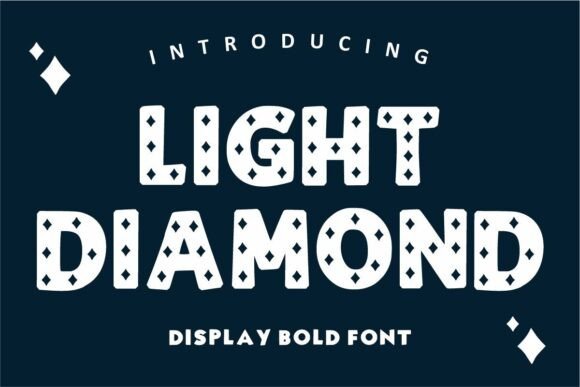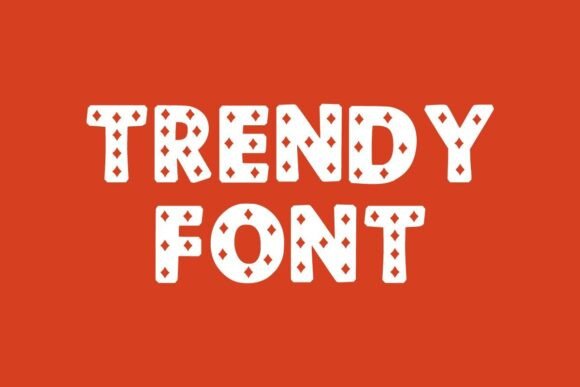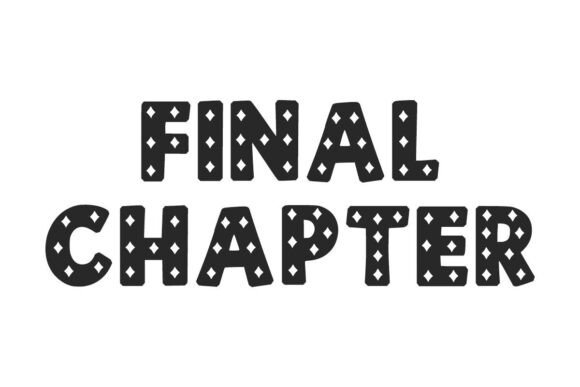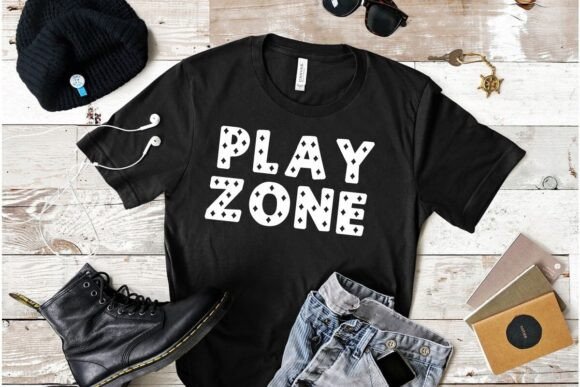
Light Diamond Font
About the Light Diamond Font
Unleash your creativity with Light Diamond Font, a versatile font perfect for a wide range of applications. Light Diamond is a diamond decorated display font. This easy-to-read typeface conveys impeccable friendliness, and it is perfect for games. Whether you’re using it for crafts, digital design, presentations, or greeting cards, this font has the potential to become your favorite go-to font, no matter the occasion!
Light Diamond’s playful, yet refined aesthetic makes it ideal for headlines, logos, short-form text on packaging, and eye-catching posters. Its decorative nature, however, makes it less suitable for body text or lengthy paragraphs; readability suffers at smaller sizes. Avoid using it in user interfaces where clear, concise typography is crucial.
The font’s inherent friendliness pairs well with softer sans-serif fonts like Open Sans or Lato for a balanced design. For a more sophisticated look, consider pairing it with a classic serif like Garamond or a slightly geometric sans-serif such as Montserrat. These combinations maintain visual interest without overwhelming the design.
Light Diamond projects a cheerful and approachable personality, best suited for brands targeting a young, modern audience or products emphasizing fun and creativity.
Light Diamond Font Usage Examples
Light Diamond Font Example